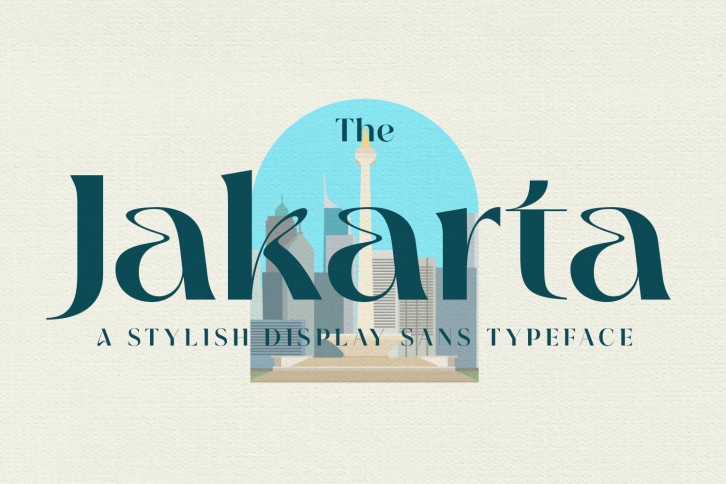
The Jakarta is a beautiful font that was designed by xdCreative. It's a great choice for designers and creatives who need such a font. It was released on July 26, 2022 and the file size is 19.90 MB. The Jakarta may give a more youthful, expressive and casual look to your project. It is a very beautiful, refined, elegant, and high-quality font.